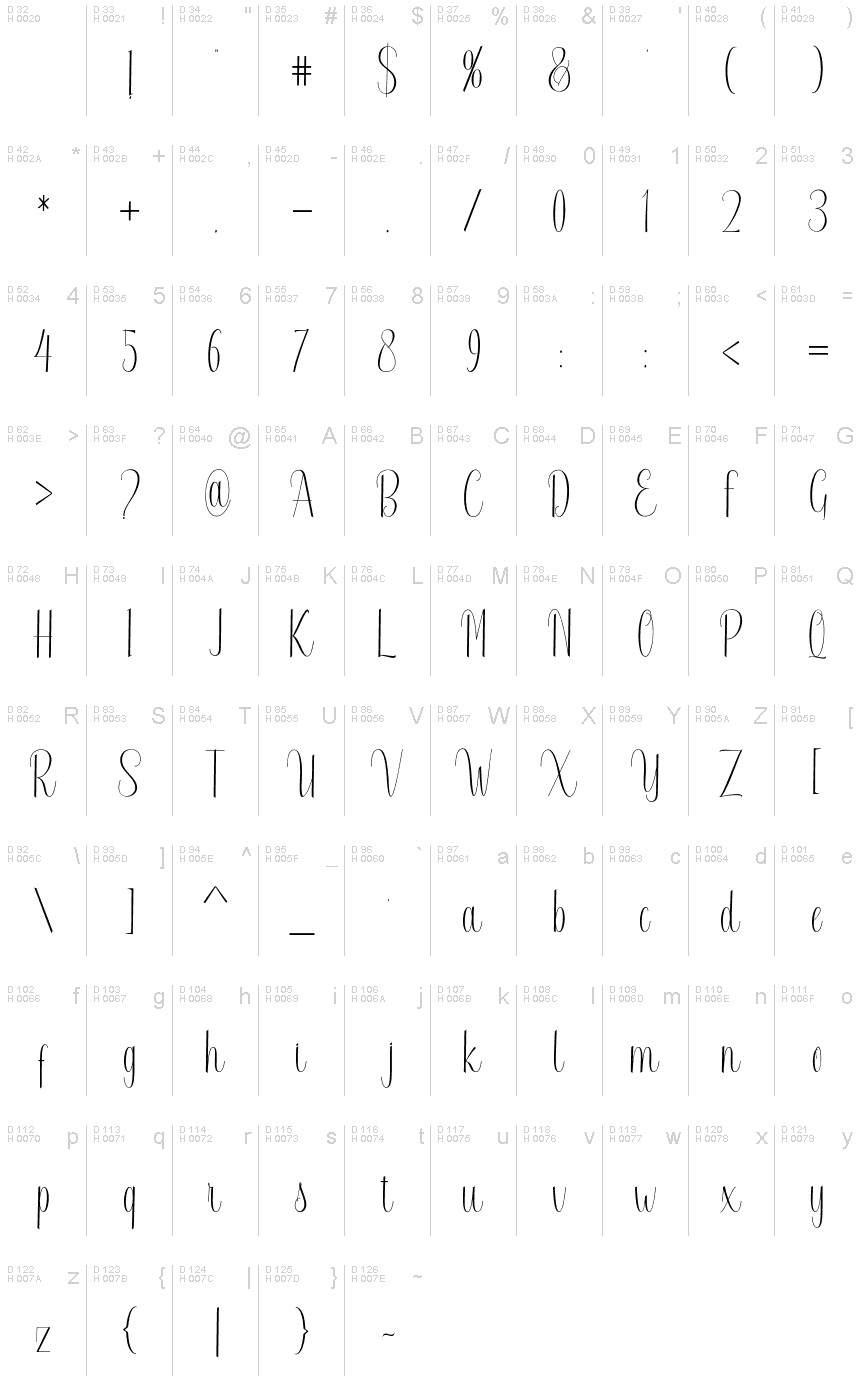
Radetta
Radetta, the stunning calligraphy font by Pollem Studio, offers a delicate touch to any project. The light weight and extra-condensed width of this typeface make it perfect for elegant designs that require a refined look. From wedding invitations to branding projects, Radetta will bring sophistication and charm to your work. Its graceful strokes and charming curves add a personal touch that is both classic and modern. Whether you're designing for print or web, Radetta will elevate your work with its timeless beauty. Give your projects a touch of class with the exquisite Radetta font.